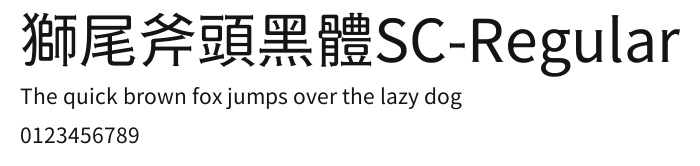
獅尾斧頭黑體SC-Regular.ttf
About 獅尾斧頭黑體SC-Regular.ttf
獅尾斧頭黑體SC-Regular.ttf is a modern, elegant sans-serif font designed for ultimate readability and visual harmony. Perfect for branding, headlines, web design, and print materials.